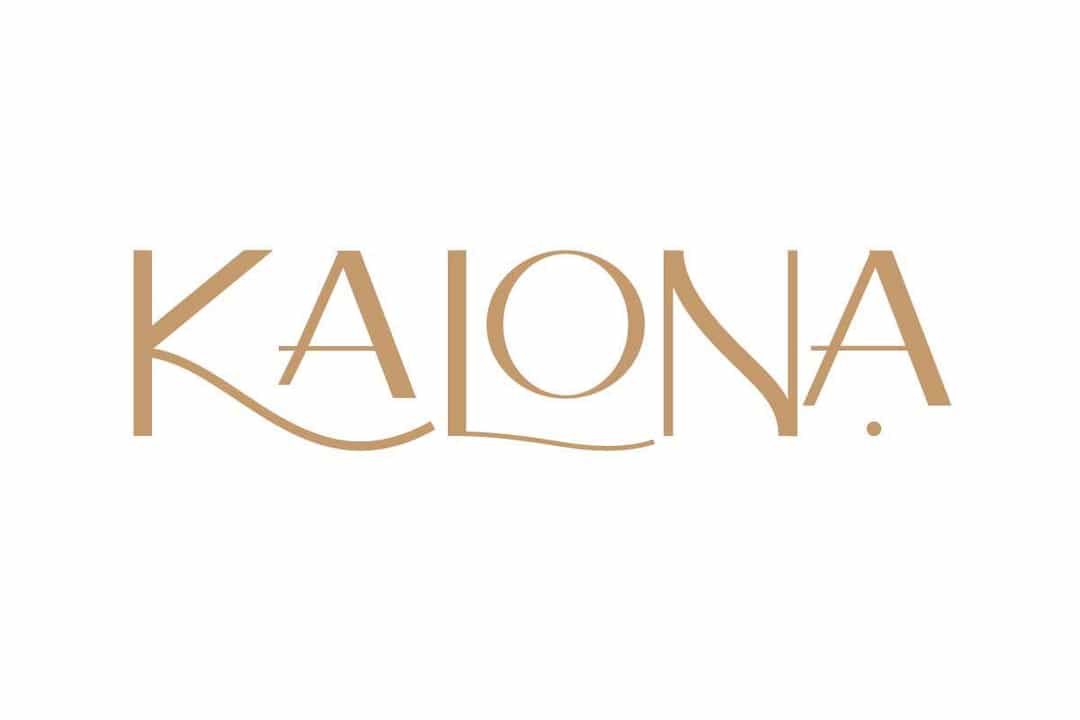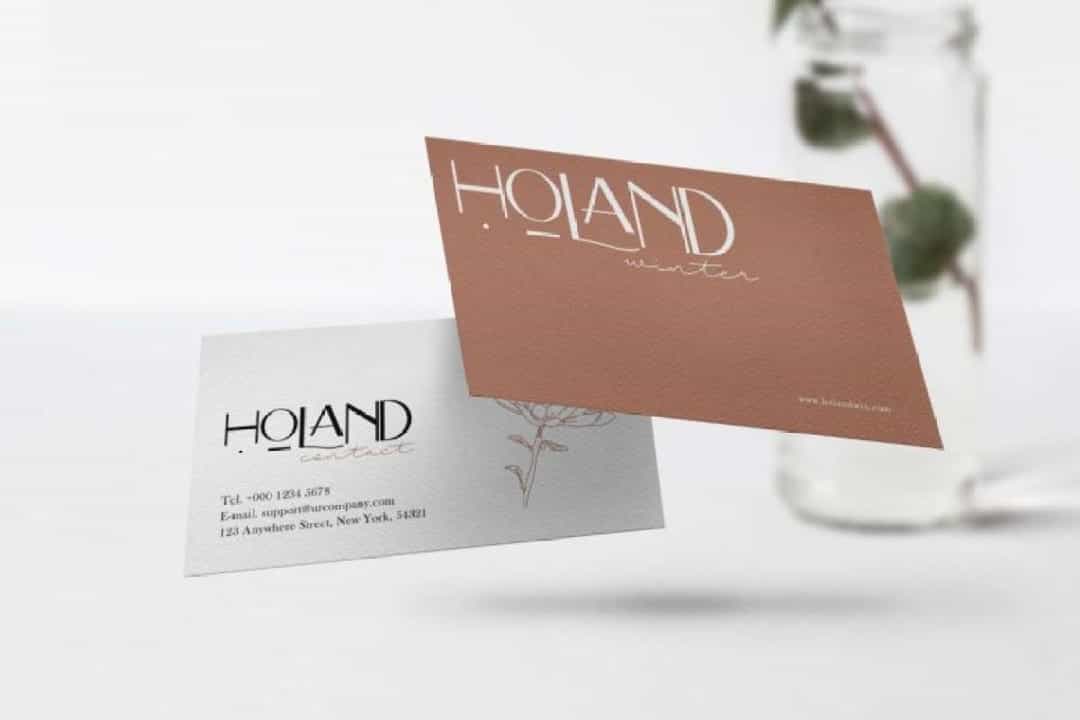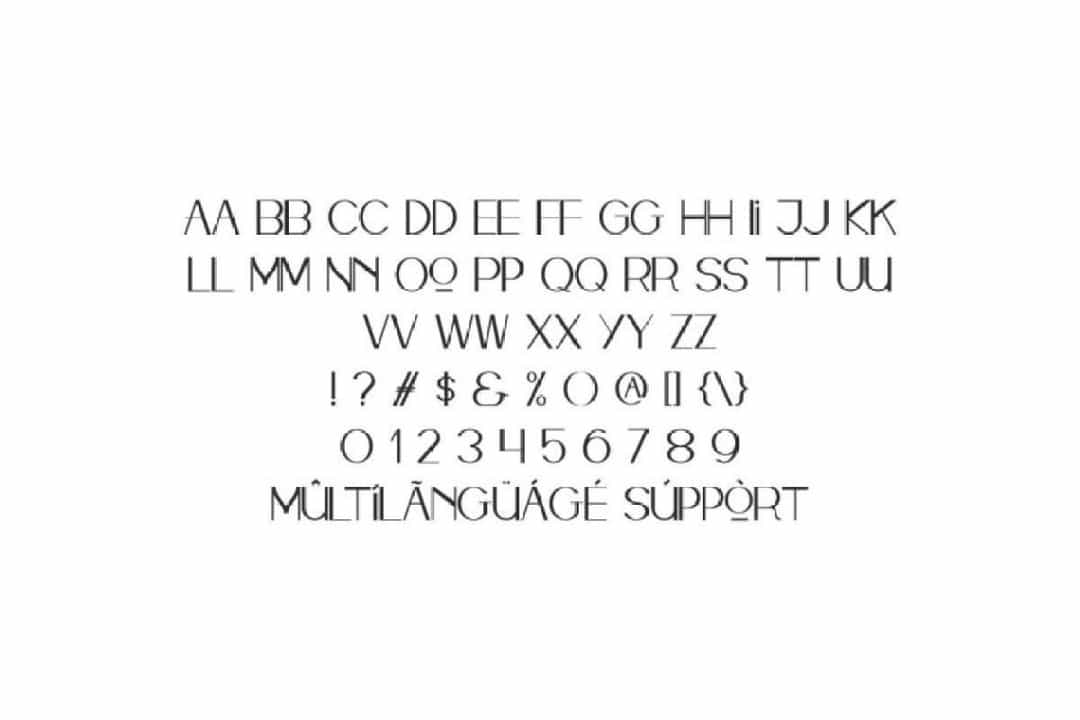
Discover Kalona Font, part of the Sans Serif collection—a versatile and unique font perfect for adding a personal touch to your projects. Download it for free and enjoy crafting designs with style, from invitations to social media posts. This font is available exclusively for personal use, giving you the freedom to create without limits. Unlock your creativity with Kalona Font today!
Kalona Sans Serif Font is ideal for use across many projects (with an extended license required), including branding logo stationery, business cards, stationery Flyers, signage brochures etc. It boasts various options to characters and ligatures which make its use fluid and beautiful – ideal for beauty, cosmetics education wedding fashion finance houseware industries etc.